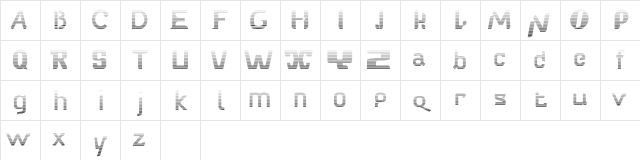
BabelfishZebral Regular
Design Context for BabelfishZebral
BabelfishZebral is a composed and adaptable typeface that performs quietly and consistently across a wide range of design contexts.